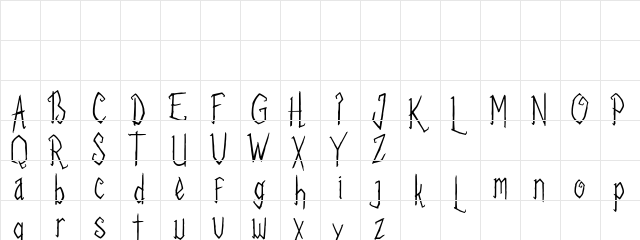
Silent Night Demo Regular
| Designer | Askar Fadhilah |
Design Context for Silent Night Demo Typeface
Silent Night Demo is a composed and adaptable typeface that performs quietly and consistently across a wide range of design contexts.